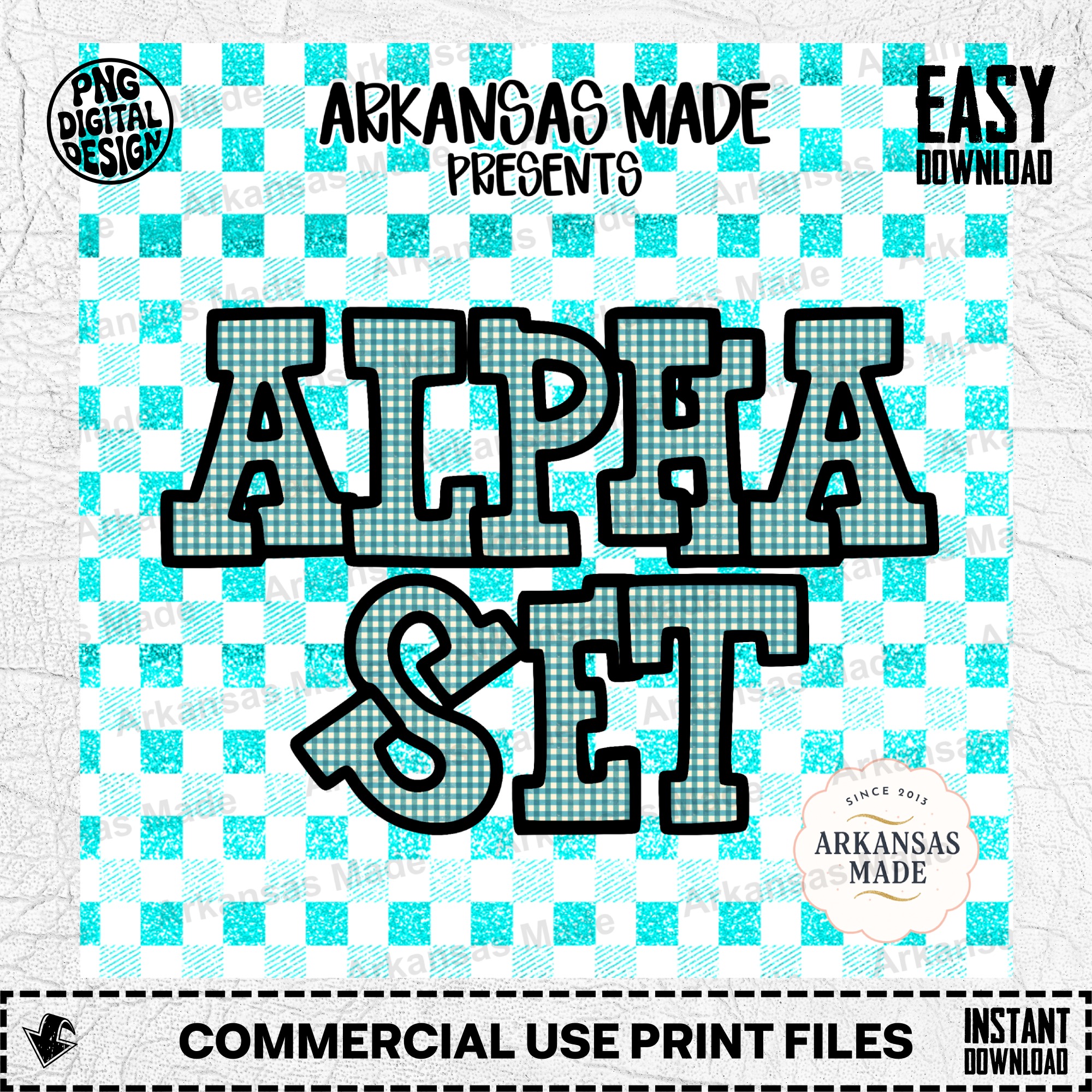
Blue Gingham Alpha PNG Bundle, Checkered Letters Sublimation, Teal Alpha Set, Digital Download Font, Custom Name Design Elements, DIY Craft
Elevate your custom projects with this charming Blue Gingham Alpha PNG Bundle! This digital download features a full checkered alphabet set perfect for sublimation and crafts. Unleash your creativity with these versatile teal plaid letters, ideal for crafters, small business owners, and DIY enthusiasts. Design personalized t-shirts, tumblers, signs, or scrapbook layouts with a touch of classic, preppy charm. It’s a perfect addition for custom birthday gifts, nursery decor, or unique event branding.